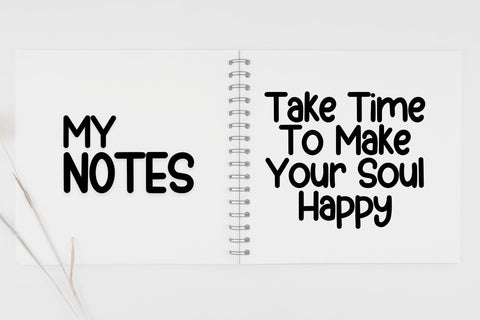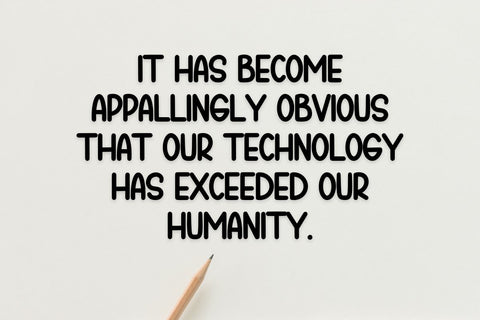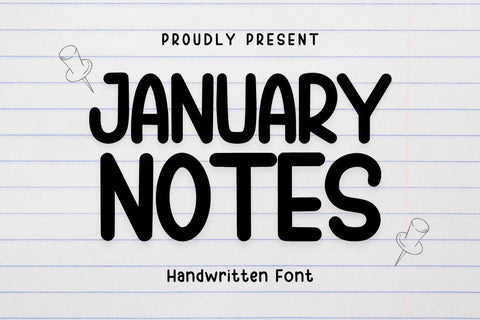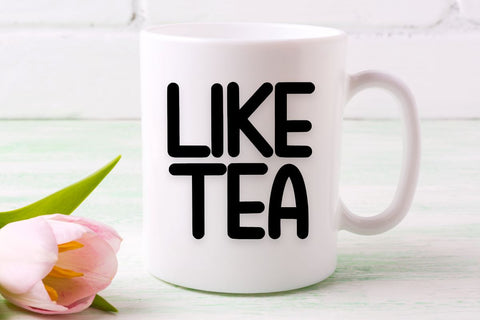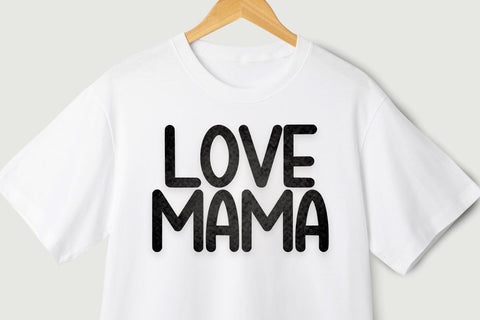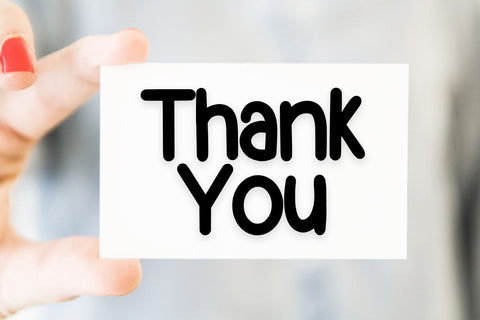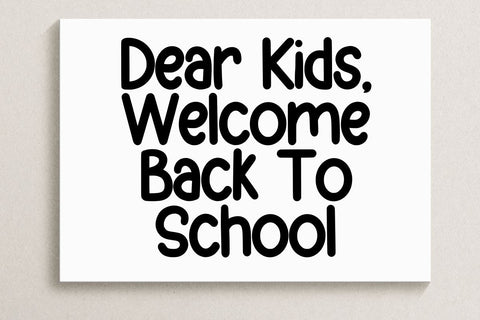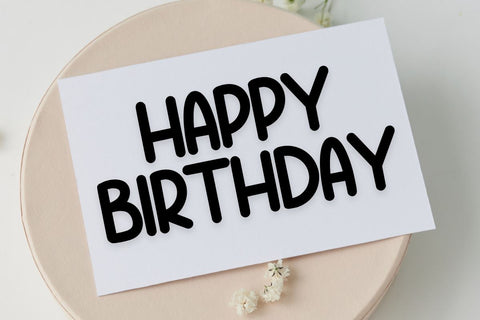
January Notes - Handwritten Font
Hi, Introducing January Notes - Handwritten Font
Handwritten font with a very cute and fun style. This font is cool for quotes, t-shirts, greeting cards, mugs, decorations, pillows, etc